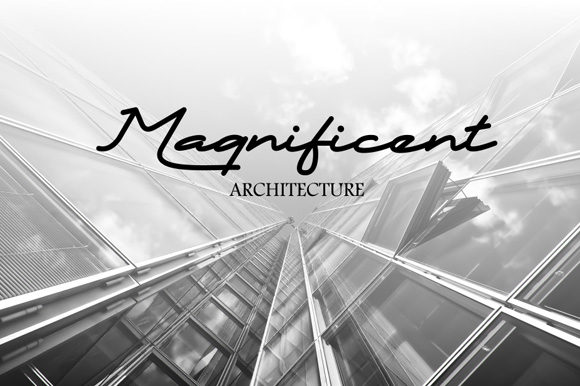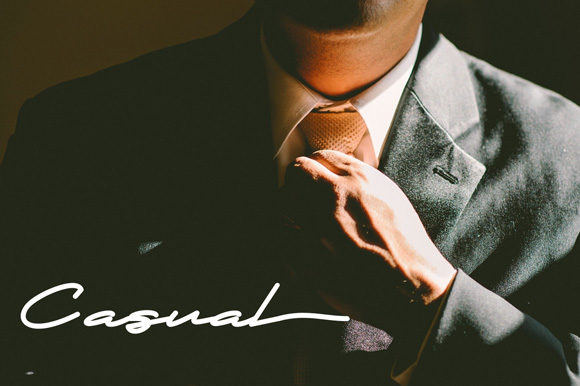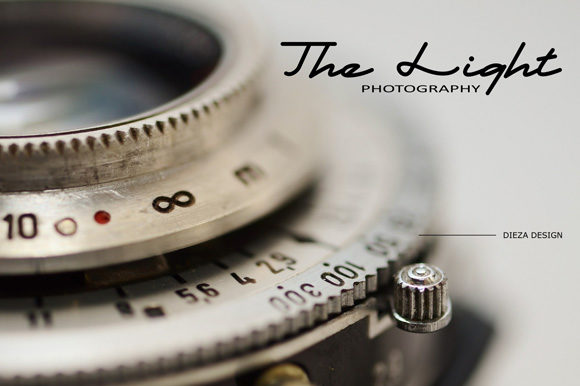
Introduction to Misano Font
Do you remember that moment when a single font changed the entire vibe of your design project? For many designers, that ‘aha’ moment is a game-changer. You’re in the midst of a creative project, and you need the perfect font to tie everything together. That’s where the Misano Font comes in – a casual and thin script that’s sure to add a touch of elegance to your high-quality design.
With its straight baseline and transparent background, the Misano Font is an excellent design resource for any creative project. And the best part? It’s available for free download, making it an accessible choice for designers of all levels. Whether you’re working on a logo, brochure, or website, the Misano Font is a valuable addition to your design arsenal.
Misano Font
- High-quality font with a transparent background, perfect for creative projects.
- Designed to be highly legible and versatile, making it suitable for a variety of applications.
- Unique characteristic: a clean and modern design, ideal for use in digital and print media.
Honest Review: Misano Font
I recently stumbled upon the Misano Font and I must say it’s a great addition to any designer’s toolbox. With its high quality and sleek design, it’s a fantastic resource for any creative project.
Here are some of the things that I like about the Misano Font:
- ✨ High quality design that’s perfect for logos, titles, and other branding elements.
- ✨ Transparent background, making it easy to use on any color scheme.
- ⚠️ Limited font sizes available, which may not be ideal for complex layouts.
- ⚠️ May not be suitable for large blocks of text due to its decorative nature.
Overall, I’m impressed with the Misano Font and I think it’s a great design resource for any creative project. While it may not be perfect, it’s definitely worth adding to your collection of design resources.
Misano Font is perfect for designing logos, business cards, and other marketing materials. Its high-quality design and transparent background make it an ideal choice for creating visually appealing graphics and illustrations.